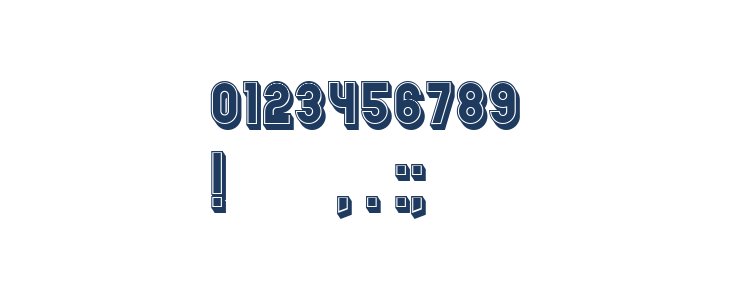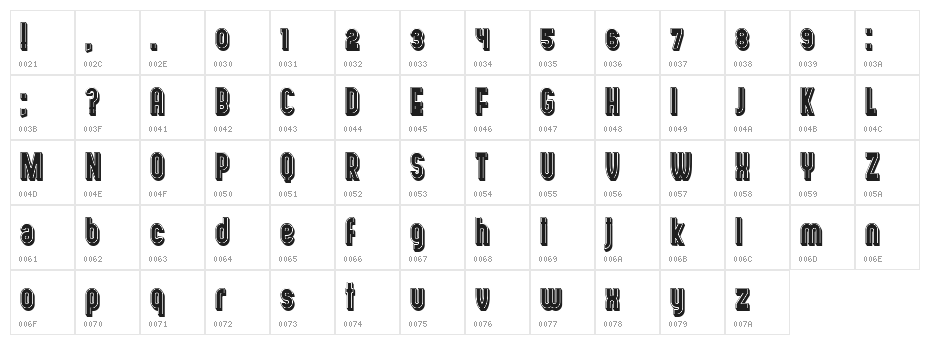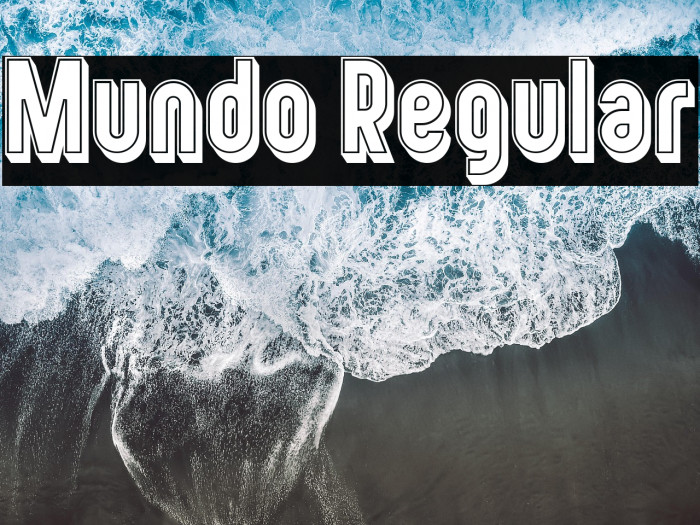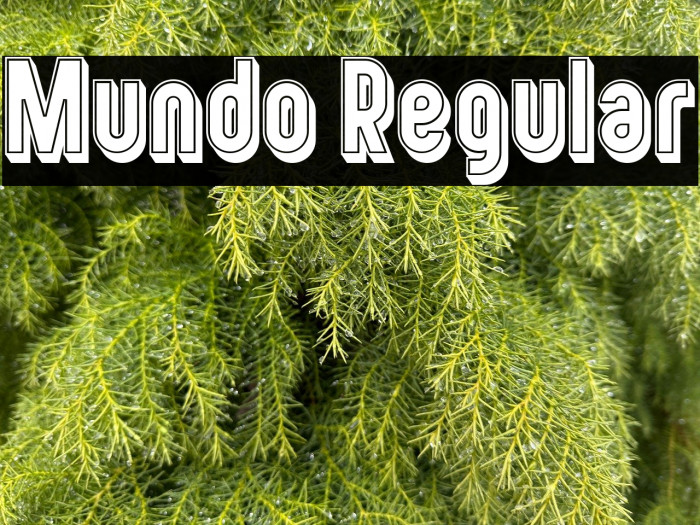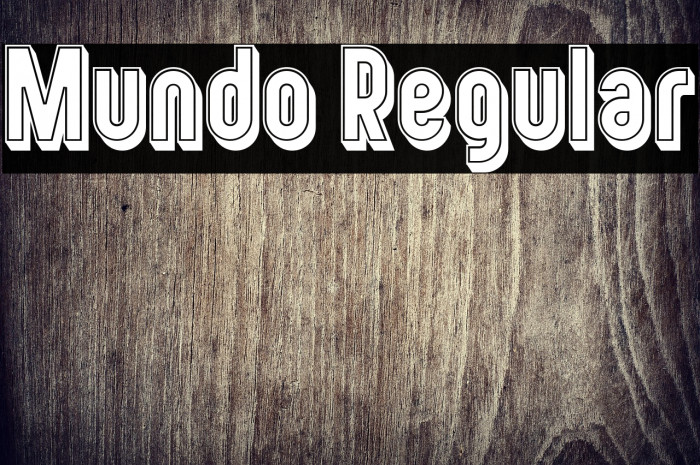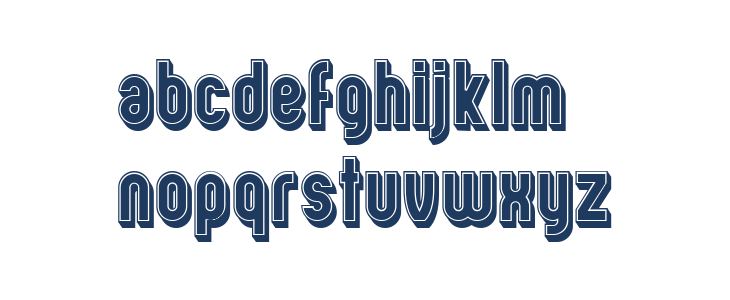
Mundo Regular Font
Mundo Regular Description
This font features a bold and striking design with a strong emphasis on geometric shapes. The characters are outlined with a thick border, creating a three-dimensional effect that adds depth and visual interest. The uppercase and lowercase letters maintain a consistent style, with rounded edges and a uniform thickness. The numbers and special characters follow the same design principles, ensuring a cohesive look across all elements. This font is ideal for making a statement, with its bold presence and unique style.